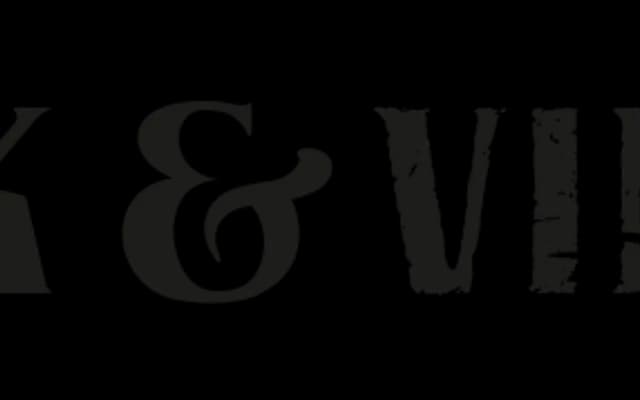
Black No.7
Typocalypse · Stefan Hübsch · 2009
A display typeface drawn from the 1866 Jack Daniel's whiskey logo, offered in a clean Black Label version and a distressed Vintage cut.
Designed by Stefan Hübsch in 2009, Black No.7 takes its cue from the famous Tennessee whiskey logo of 1866. The family ships in two variants: a clean Black Label and a distressed Vintage version, with over 400 glyphs covering ligatures, alternates and special characters. It suits packaging, branding and editorial work where a heritage Americana aesthetic is called for.
Inspired by a 19th-century Tennessee whiskey logo, this is an ornate display typeface with a distressed vintage variant, placing it firmly in the decorative/display category with a Western or Americana flavour.